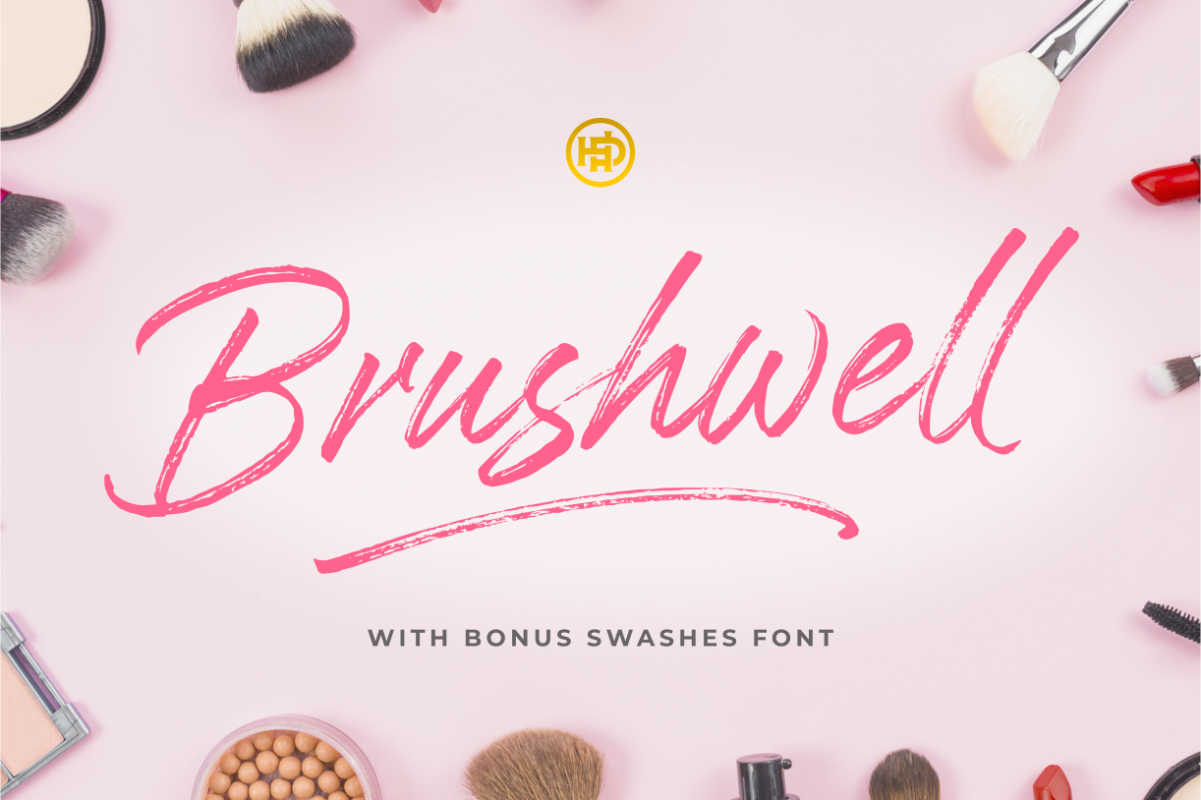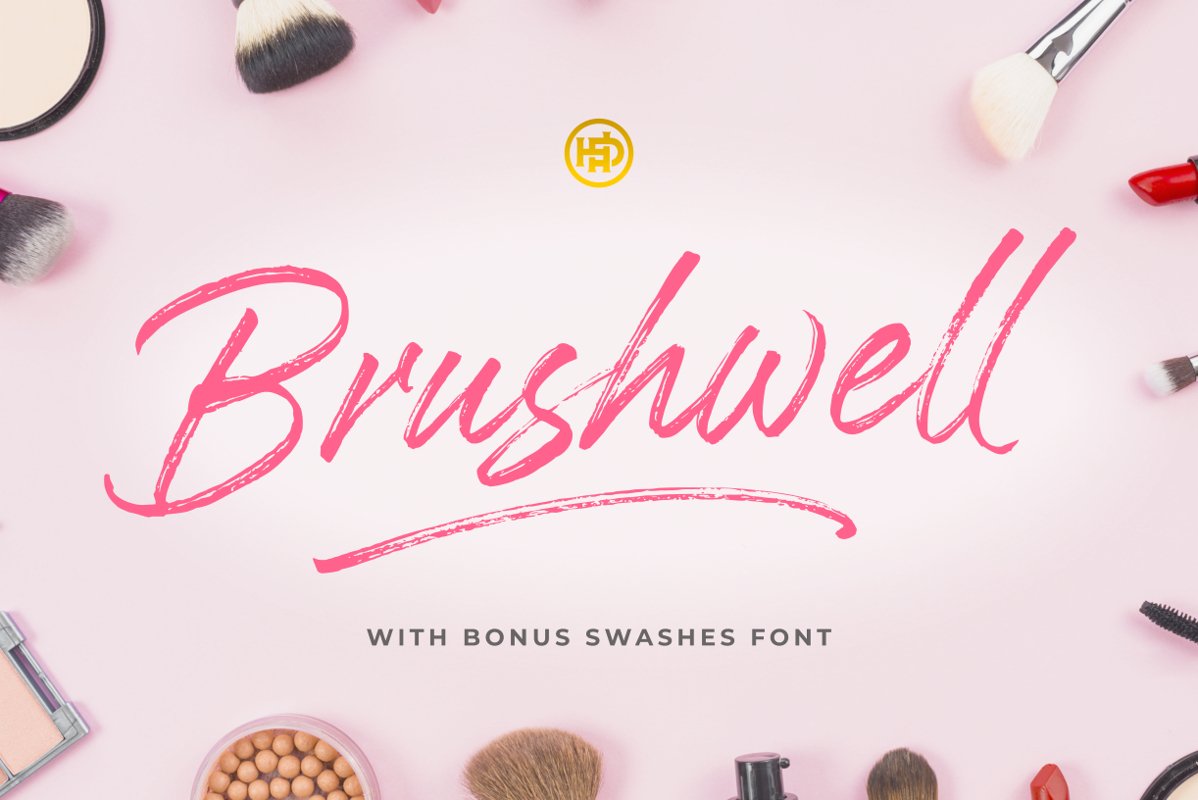
Brushwell
Brushwell Swash
Brushwell is made with a real brushpen by Hendra Pratama.
The font deliver the dry brush effect , to create a natural looks of beautiful handwriting brush calligraphy.
Brushwell contains International glyphs such as below:
µ¸ÀÁÂÃÄÅÆÇÈÉÊËÌÍÎÏÑÒÓÔÕÖרÙÚÛÜÝßàáâãäåæçèéêëìíîïñòóôõöøùúûüýÿ
ĀāĂ㥹ĆćĈĉĊċČčĎďĐđĒēĔĕĖėĘęĚěĜĝĞğĠġĢĤĥĨĩĪĬĭĮįİĴĵĶ
Ĺ弾ŃńŇňŌōŎŏŐőŒœŔŕŖŘřŚśŜŝŞşŠšŢŤťŨũŪūŬŭŮůŰűŲų
ŴŵŶŷŸŹźŻżŽžǼǽǾǿȘˆˇ˘˙˚˛˜˝ẀẁẂẃẄẅỲỳ
It also equipped with standard OpenType Features such as Ligatures and Stylistic Set.